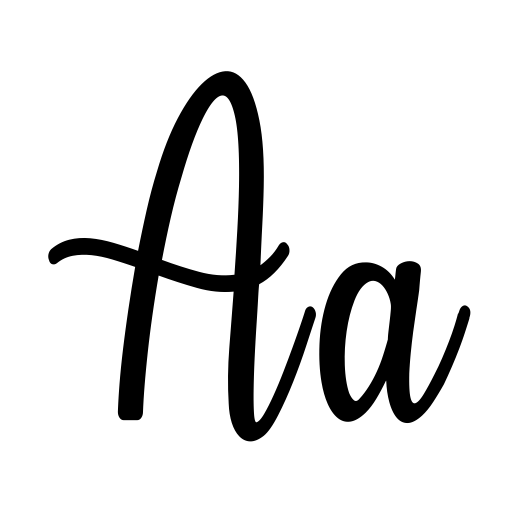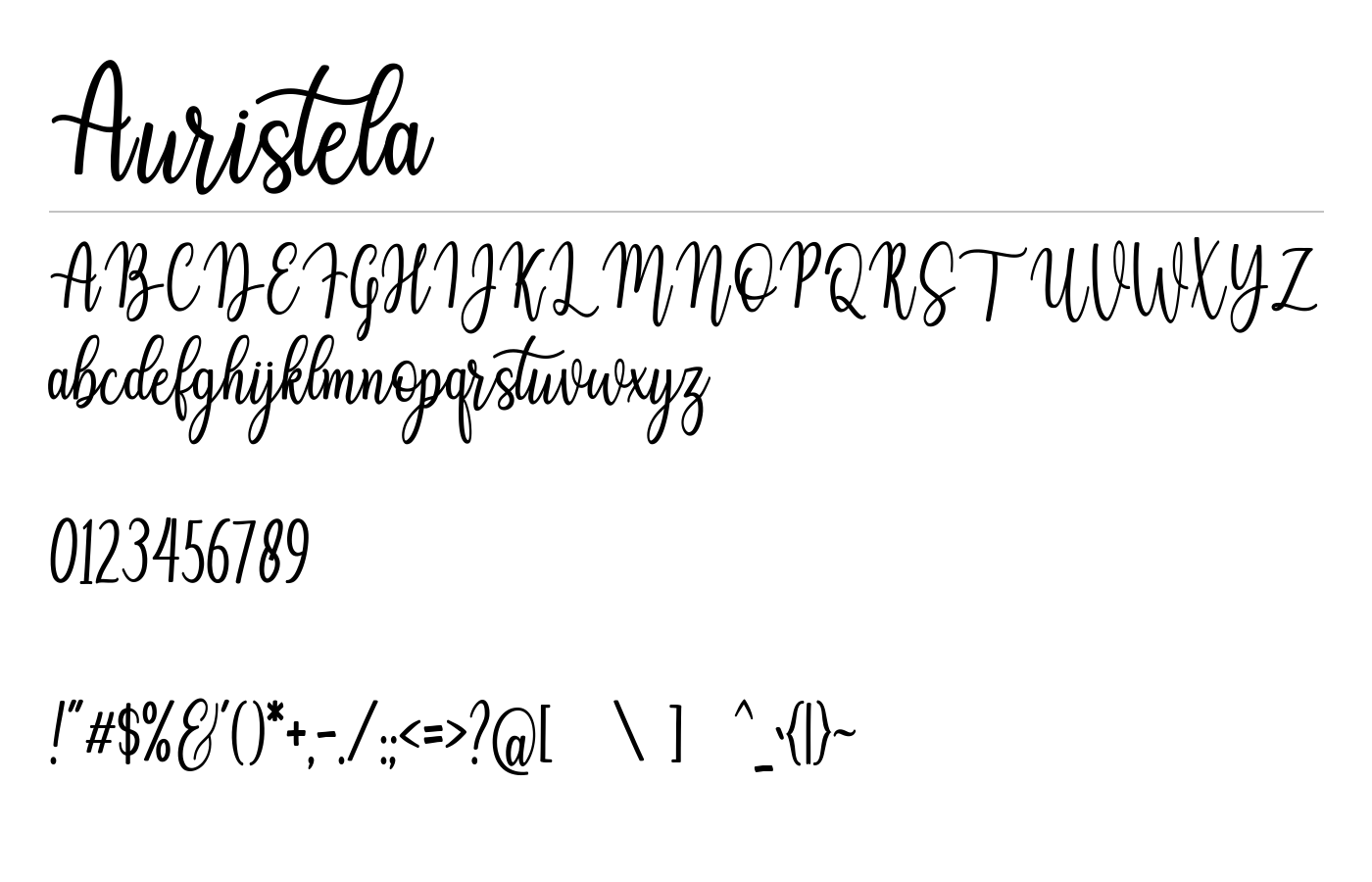
Auristela is a charming, handwritten script font with a light and elegant touch, featuring tall, slender letterforms and smooth, flowing strokes. Its casual yet refined style makes it perfect for creative branding, invitations, and personal projects where a warm, approachable feel is desired. With its clear legibility and stylish flair, Auristela works beautifully in both headlines and decorative text.
Auristela Font
About Auristela Font